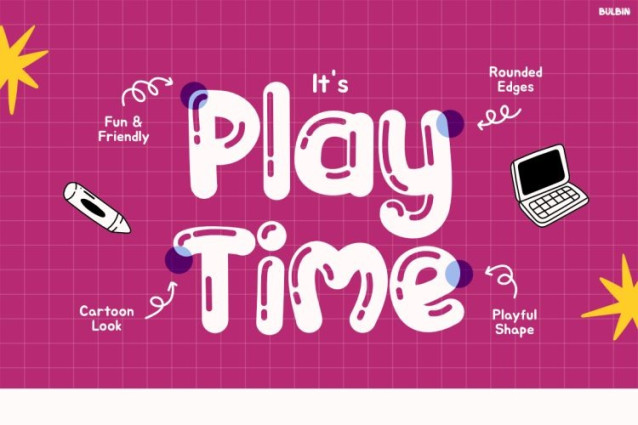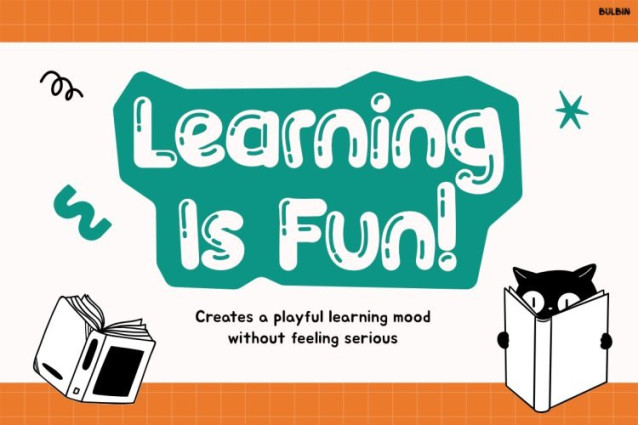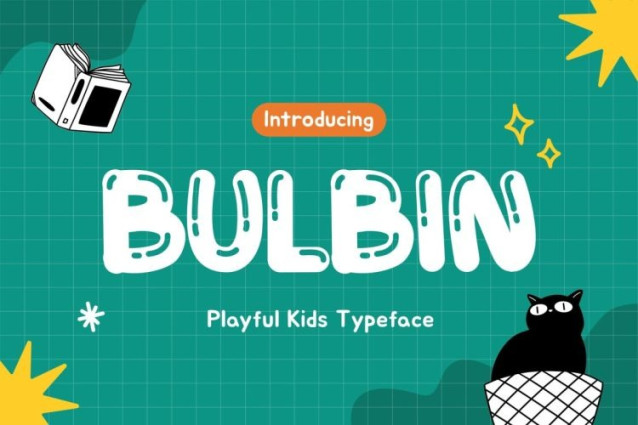
Bulbin Font
Bulbin Font is a cheerful and playful kids typeface designed to turn every word into a fun experience. From the very first glance, this font feels friendly, warm, and full of joy. Its rounded shapes, chunky strokes, and lively details create a welcoming look that instantly attracts children’s attention. Kids Font Bulbin stands out because it balances cuteness with clarity. Each letter feels hand-crafted yet remains easy to read, making it perfect for both playful designs and educational content. Moreover, the font’s consistent rhythm helps young readers recognize letters faster, while the joyful aesthetic keeps them engaged longer. As a result, Bulbin is not just decorative, but also highly functional for learning and storytelling.
Kids Font Bulbin is inspired by the happy moments of childhood learning, playtime, and creativity. The letterforms are bold, soft, and expressive, giving every design a positive and optimistic tone. In addition, the playful alternations and friendly curves add personality without overwhelming the message. This font works beautifully in headlines, posters, worksheets, and kids-focused branding. Because of its strong readability, Bulbin performs well in both print and digital media. Whether used for short phrases or longer text blocks, it maintains clarity while still feeling fun and energetic.
Kids Font Bulbin is ideal for educators, parents, designers, and brands that focus on children. Teachers can use it for worksheets, flashcards, and classroom decorations. Meanwhile, designers will love it for children’s books, story apps, learning games, and playful packaging. It also suits kids brands, toy labels, school events, and early learning platforms. In short, Bulbin is perfect for anyone who wants to communicate with kids in a friendly, positive, and engaging way.